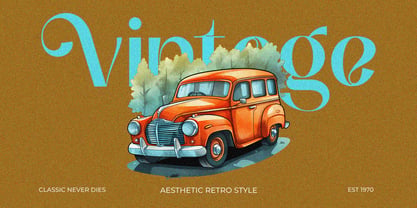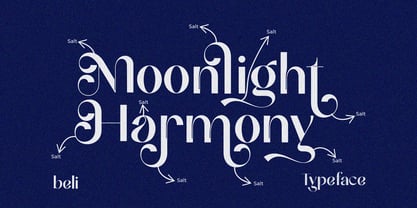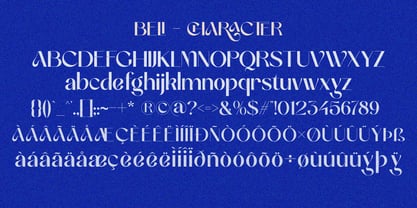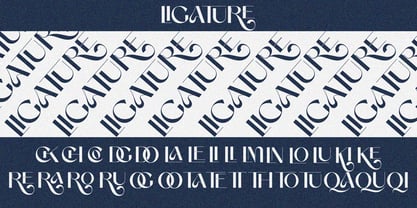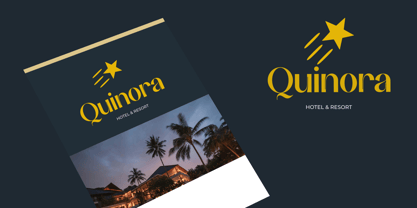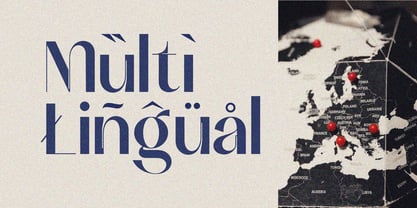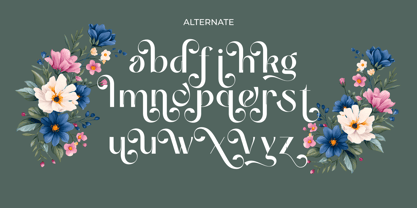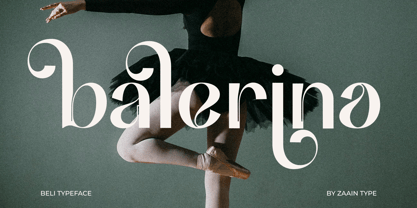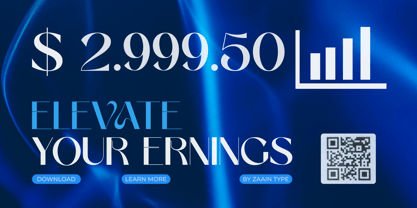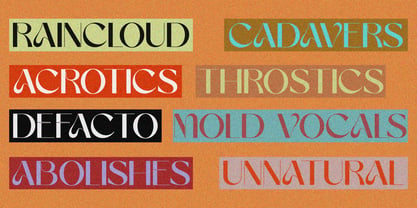
Beli
by Zaain Type
The Beli Font Family was designed by Ju Naen and published by Zaain Type. Beli contains 2 styles and family package options. More about this family
Beli is a modern sans serif typeface that blends simplicity with a refined aesthetic. Designed with clean lines and balanced proportions, Beli offers a versatile look that feels both contemporary and approachable. Its smooth curves and subtle character details make it suitable for a wide range of applications, from branding and editorial layouts to digital interfaces. With its minimal yet distinctive appearance, Beli brings clarity and elegance to every composition. Whether used in headlines or body text, it maintains excellent readability while delivering a polished visual presence. Beli is the perfect choice for designers seeking a timeless sans serif with a fresh and confident tone
Designers: Ju Naen
Foundry: Zaain Type